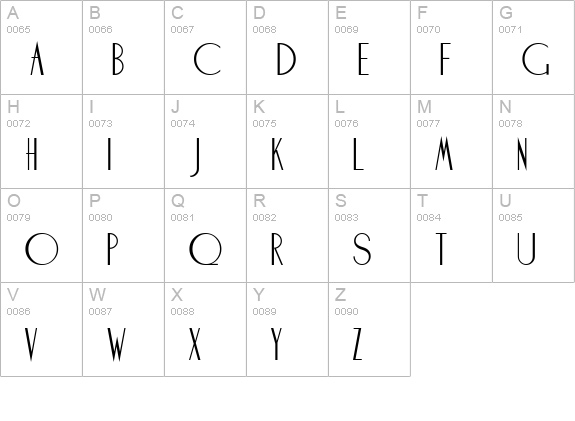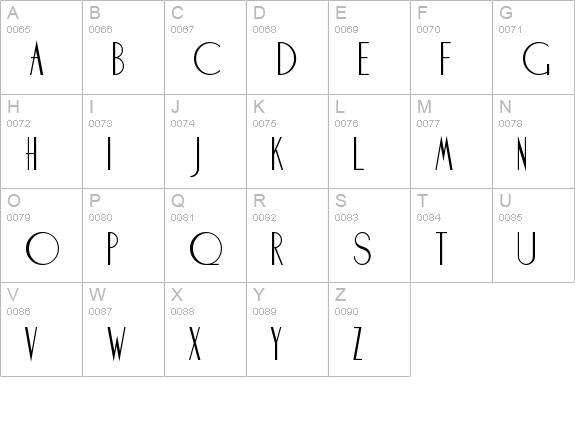
Maharlika Font Details
Maharlika font is a beautiful and versatile typeface that exudes elegance and sophistication. With its clean lines and smooth curves, this font is perfect for a wide range of design projects, from branding and logos to invitations and packaging. One of the best things about Maharlika font is that it is free! That's right, you can download this amazing font without spending a dime. It is freely available to download at FontsMarket.com, a trusted source for high-quality fonts. Whether you're a professional designer or just someone who appreciates good typography, Maharlika font is a must-have in your font collection. Its timeless and classic style will never go out of fashion, making it a perfect choice for both contemporary and traditional designs. With Maharlika font, you have the freedom to unleash your creativity and create stunning visuals that will leave a lasting impression. Its versatility allows it to be used in a variety of design projects, giving you endless possibilities. So why wait? Go ahead and download Maharlika font now, and let your imagination run wild. With its free availability and exceptional quality, this font is truly a gem that you don't want to miss. Get ready to elevate your designs to new heights with Maharlika font!